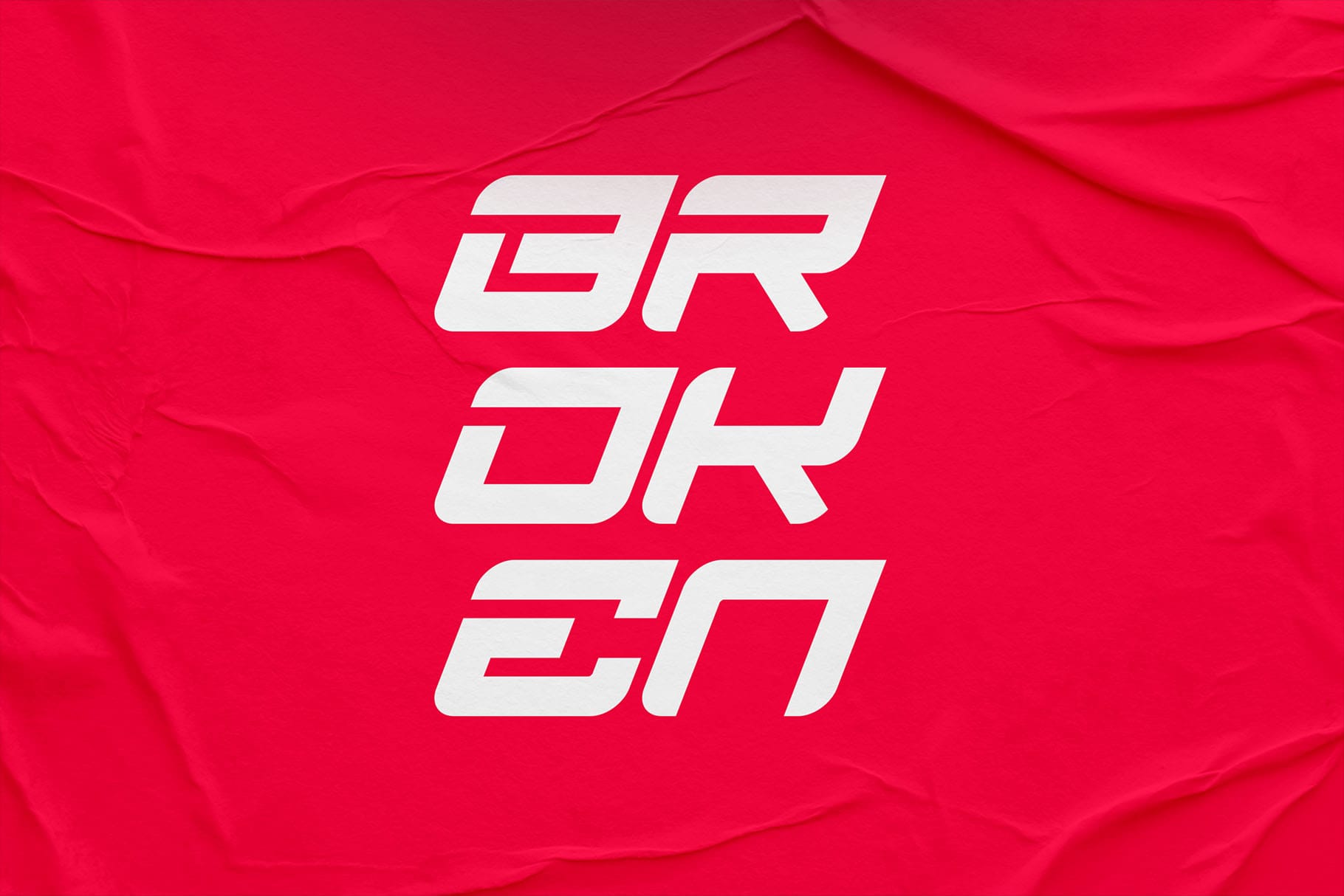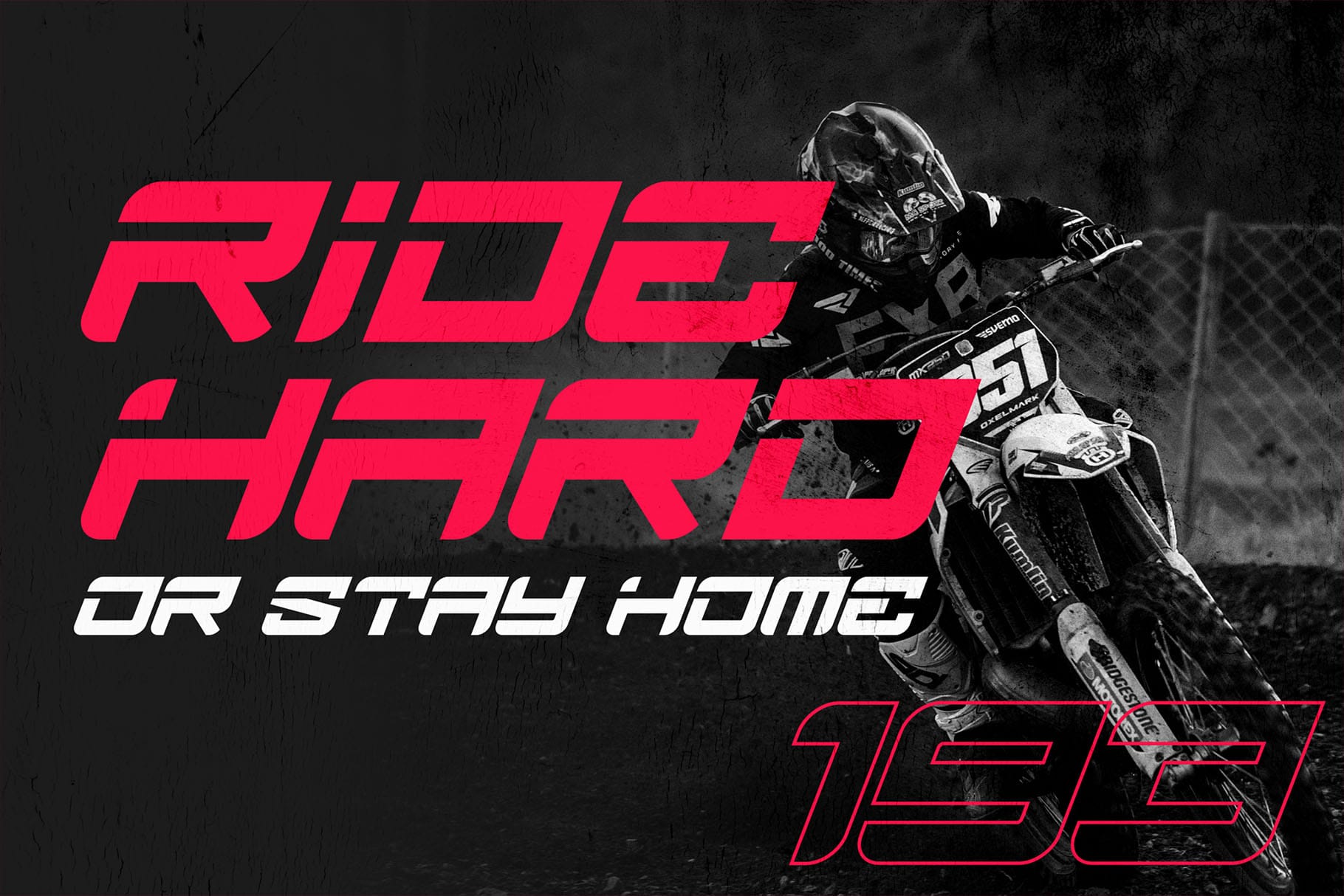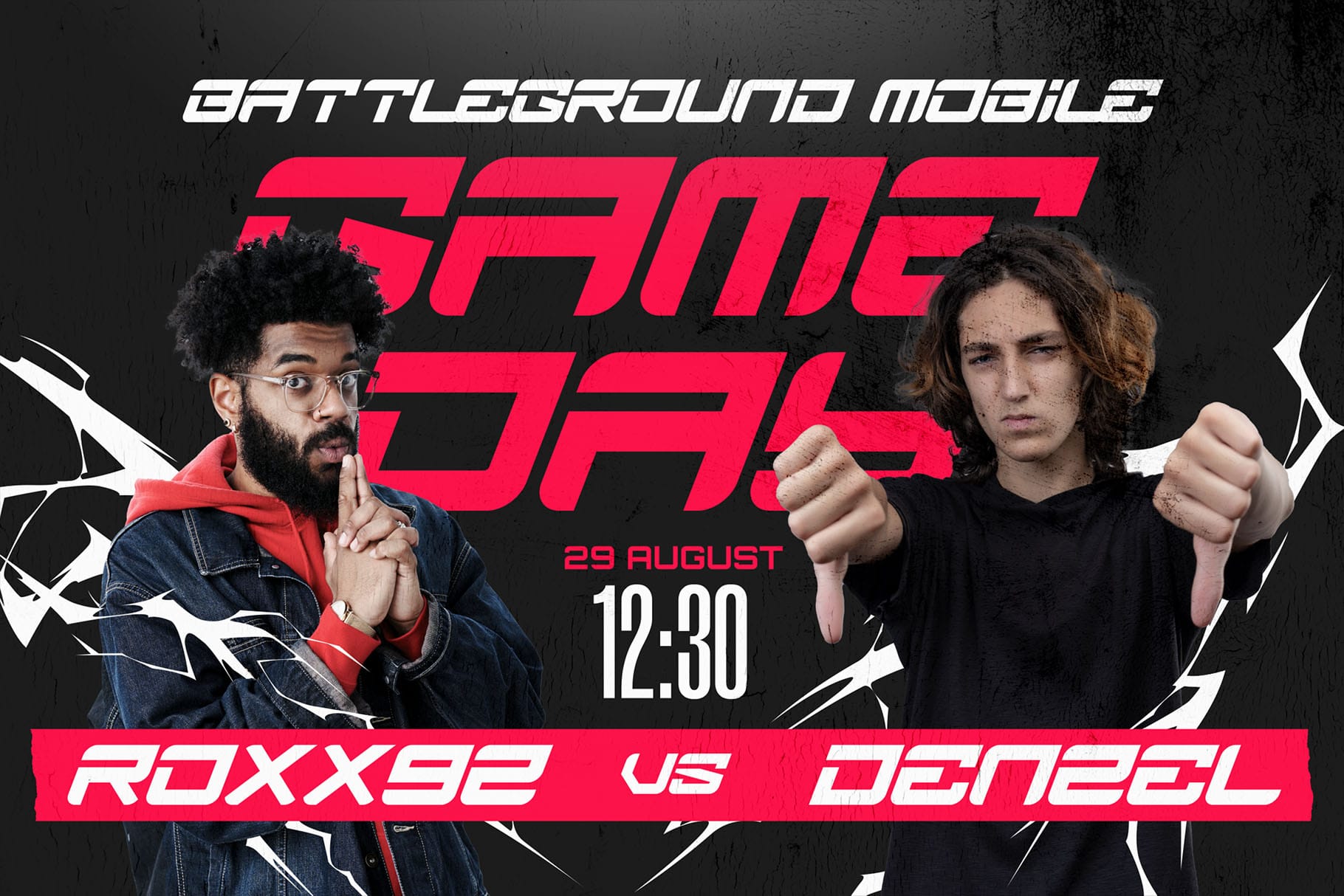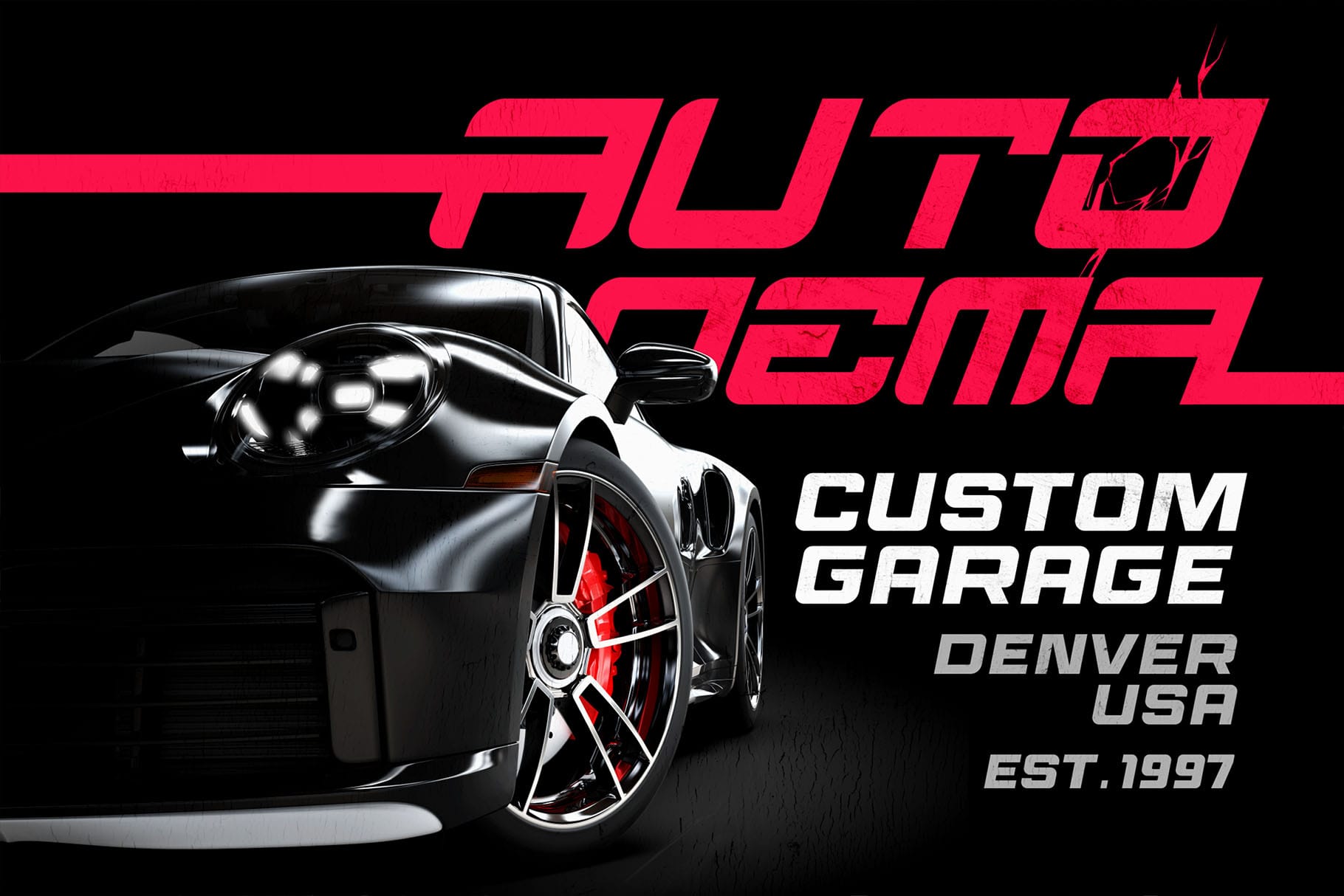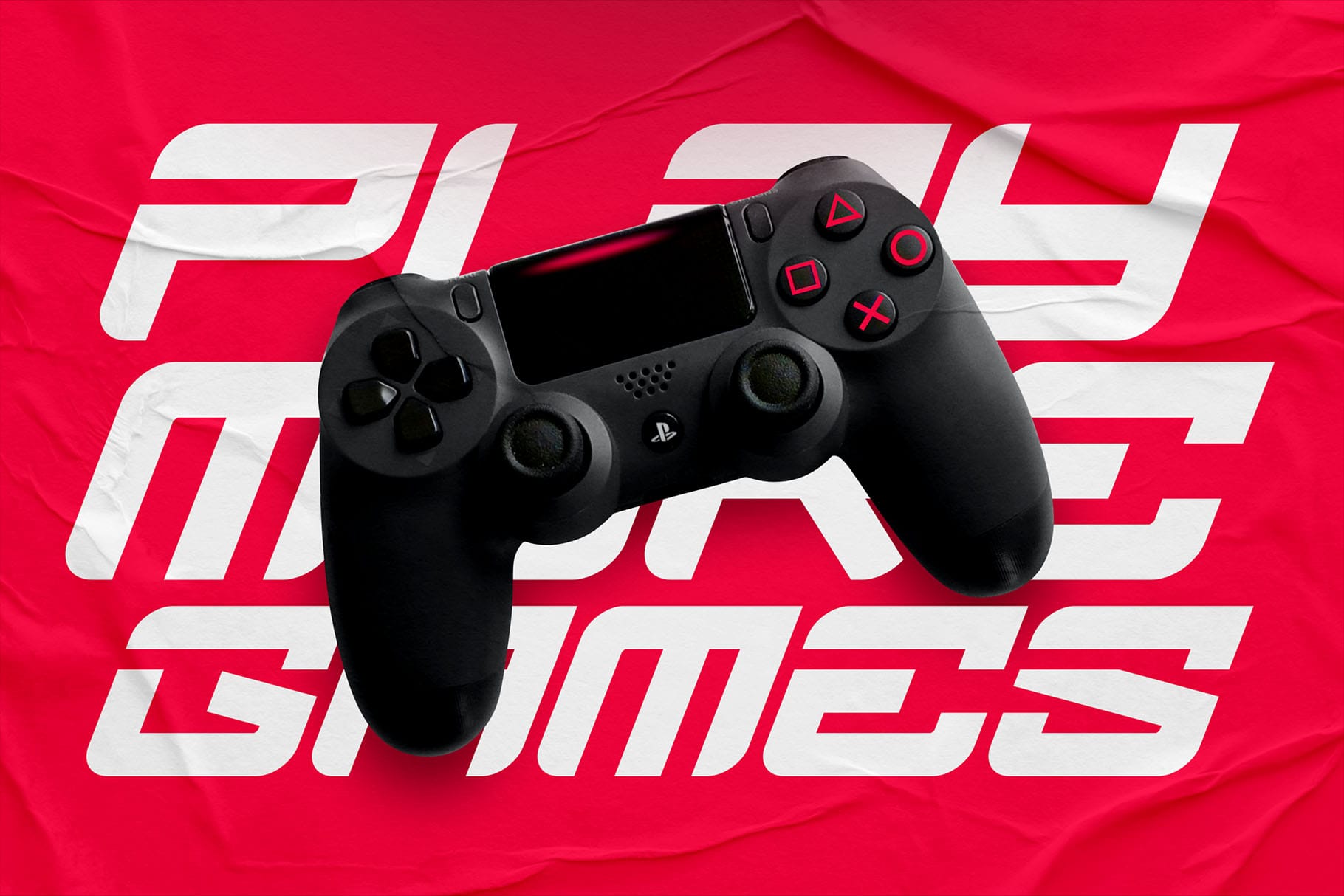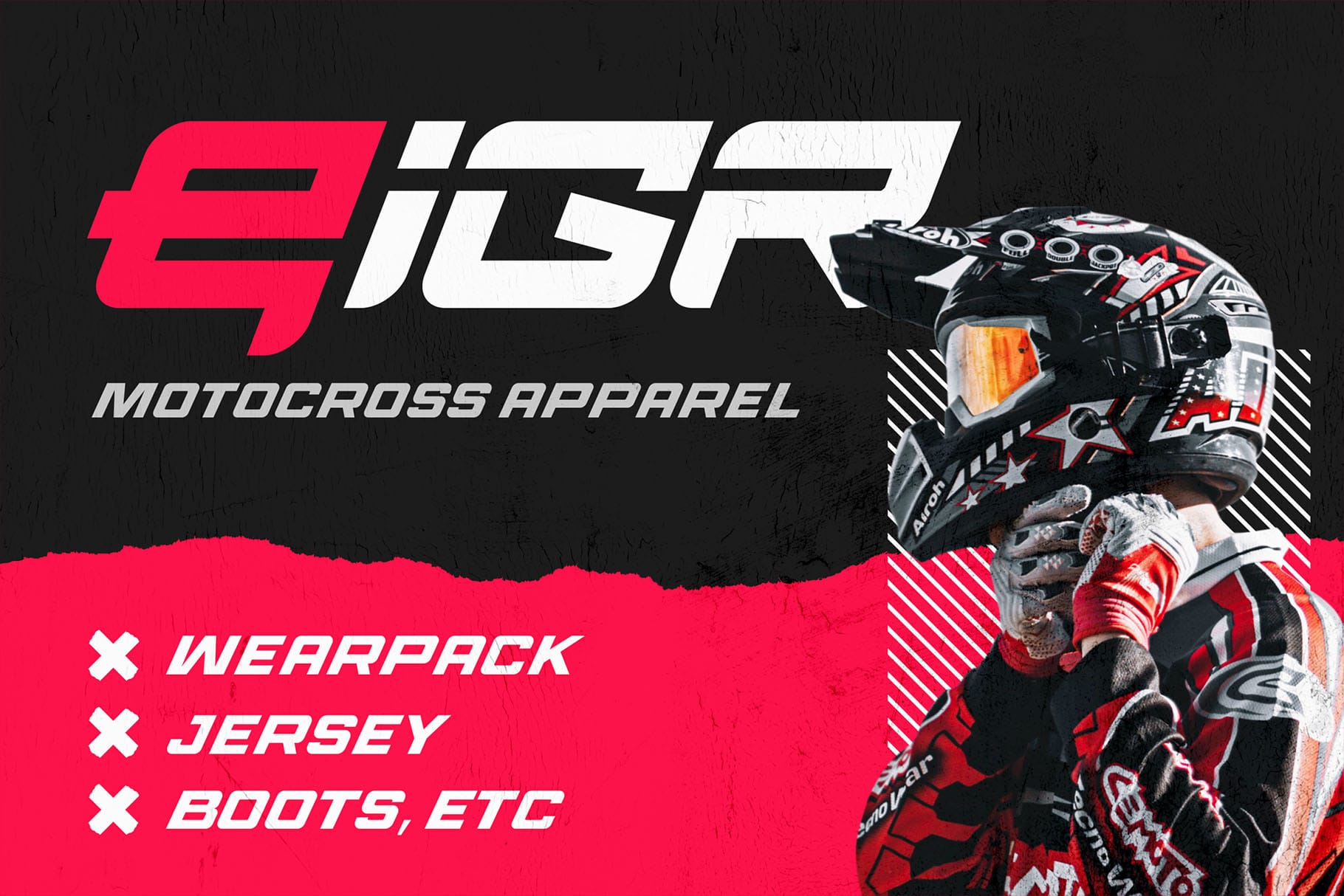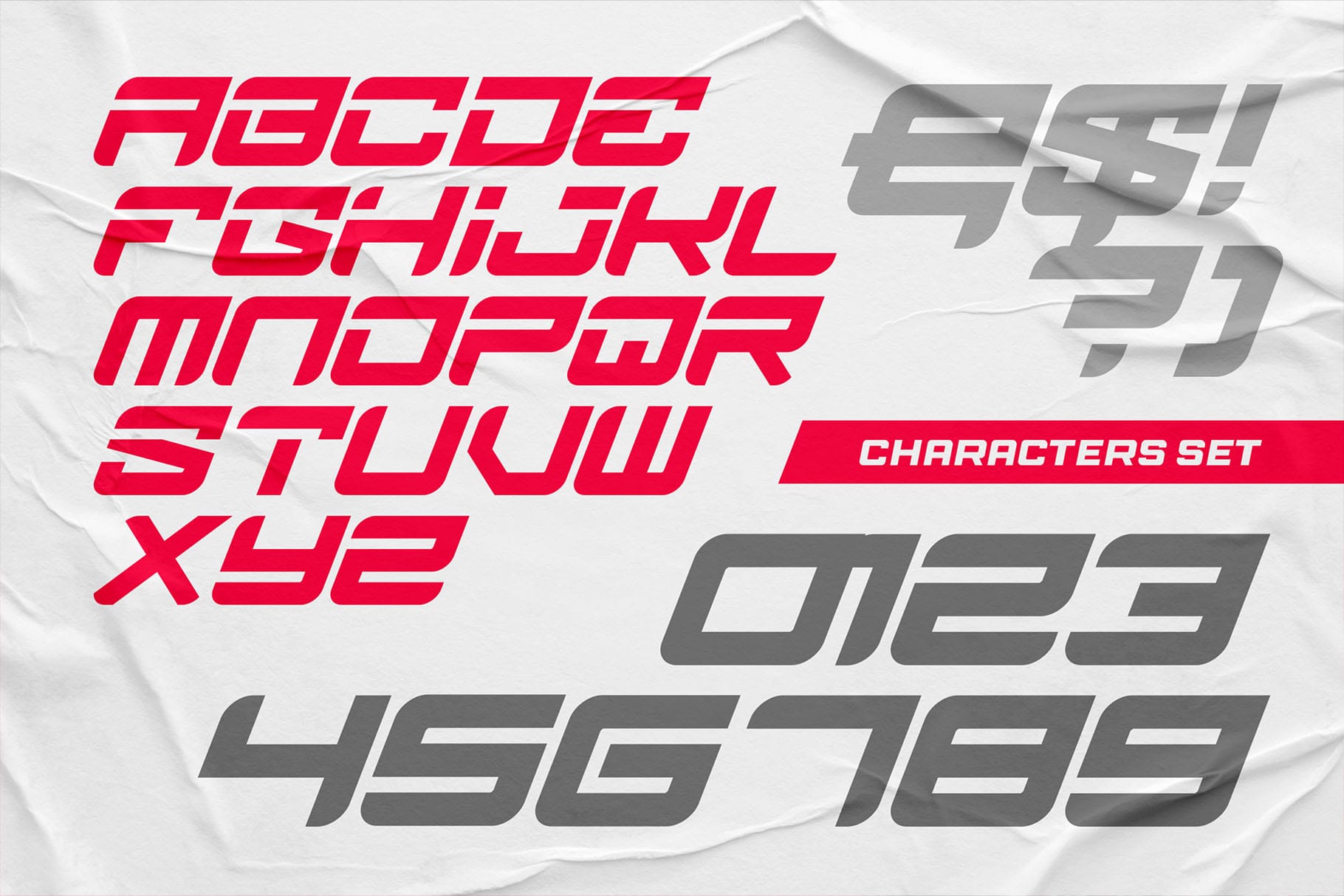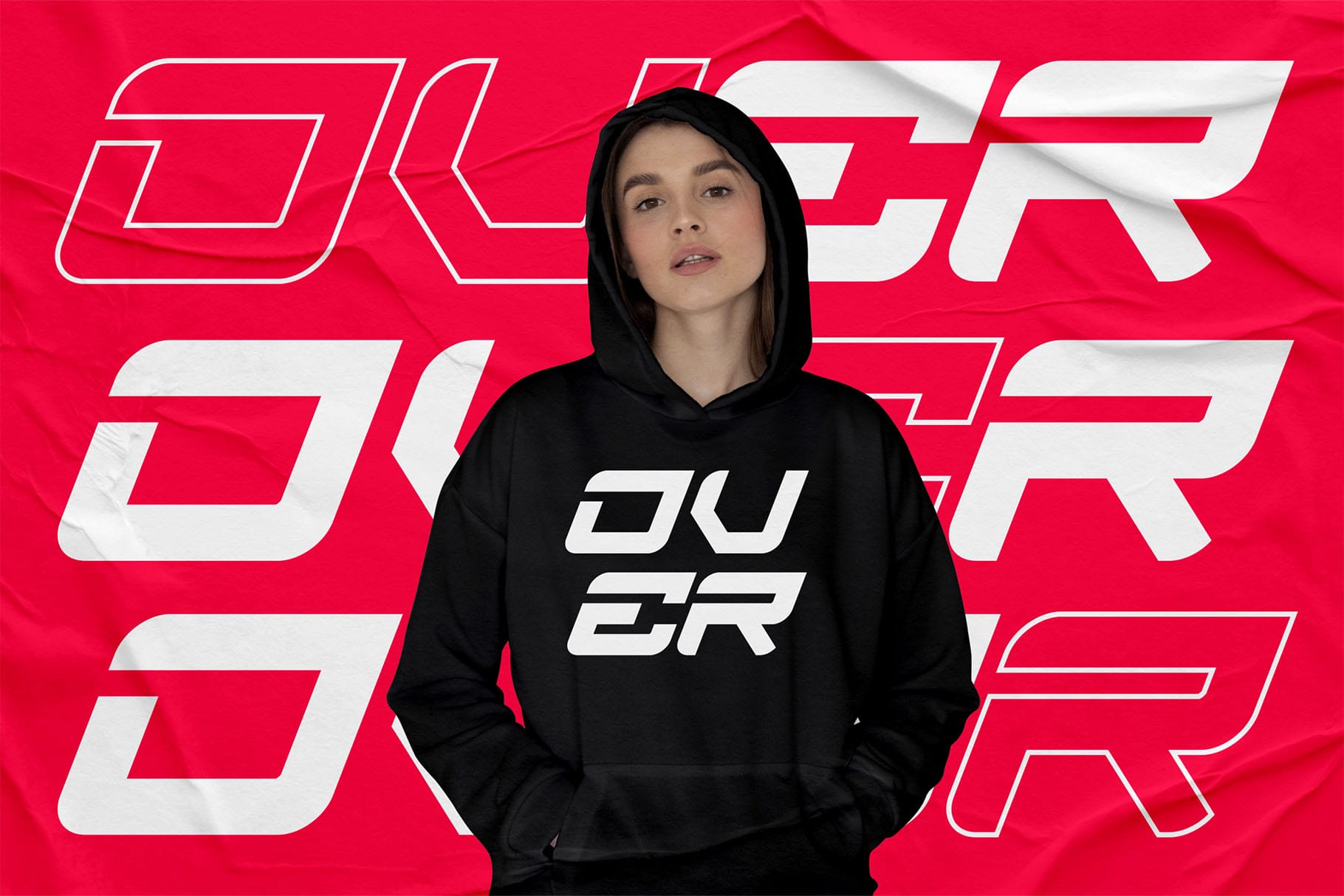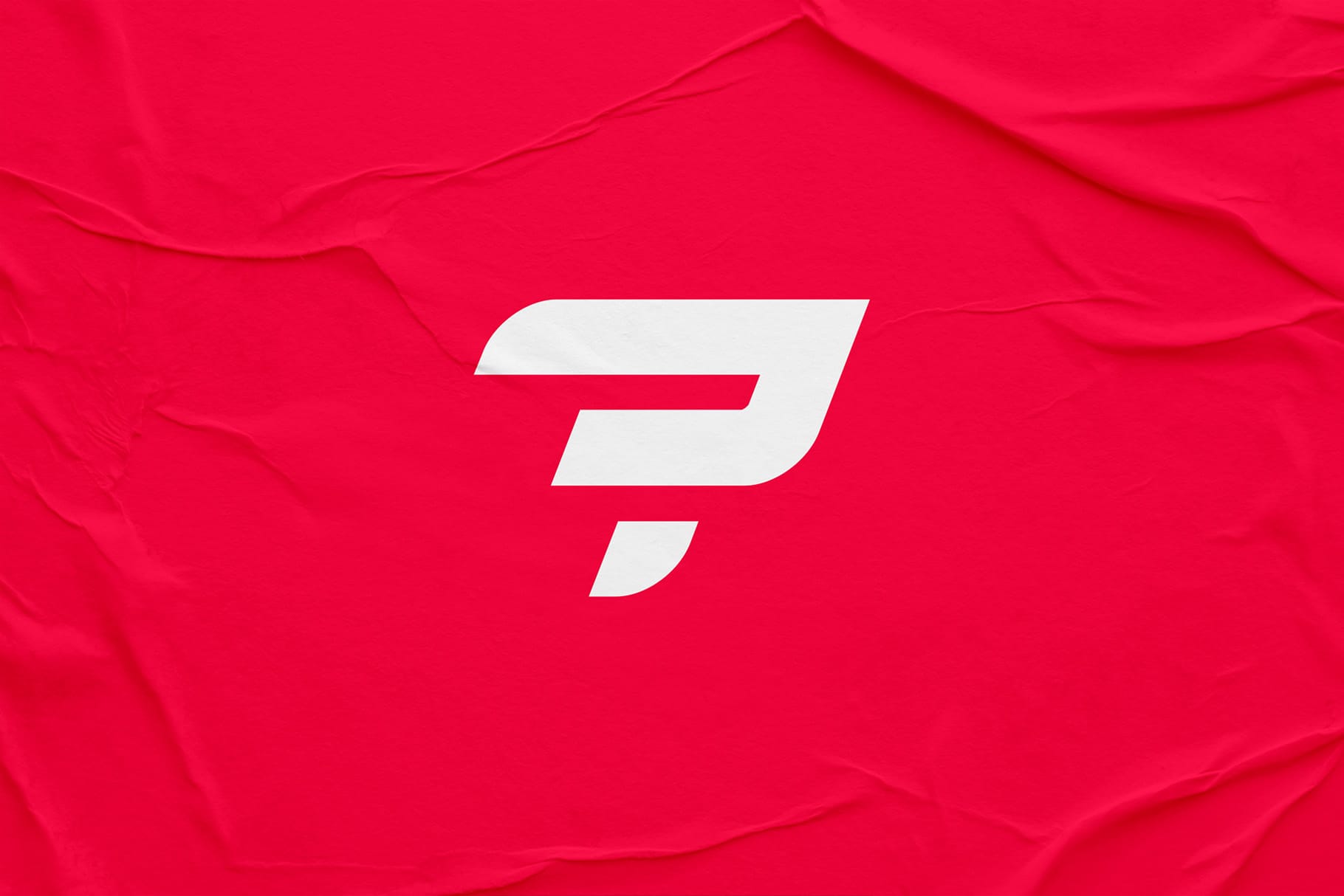
Brake Disc is an Energetic Racing Font. The font is ready to be used for your racing sports or automotive-related projects.
Built to be perfect for headlines, jerseys, logos, branding, posters, packaging, advertising, and much more.
- All Caps Font
- Versatile for branding, headline, or printing product
- Detailed dry brush markers